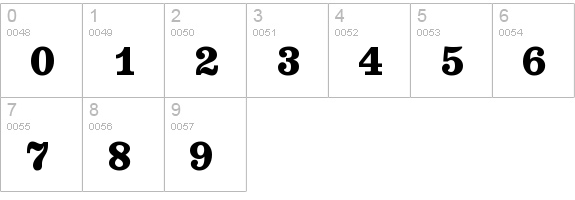
E710-Roman-Bold is a strong, high-contrast variant in the E710 typeface family \xE2\x80\x94 well suited to headlines, attention-grabbing titles, and strong calls-to-action.
E710-Roman-Bold font is a stylish and versatile typeface that exudes a classic Roman aesthetic with a modern twist. Its bold weight adds a strong and impactful presence to any design project, making it perfect for headlines, titles, and other display purposes. The clean lines and sharp edges of this font give it a professional and polished look that commands attention. What makes E710-Roman-Bold font even more appealing is that it is available for free download at FontsMarket.com. This means you can easily access and use this high-quality font in your projects without any cost. Whether you're designing posters, logos, or any other graphic materials, E710-Roman-Bold font is a fantastic choice that will elevate your work to the next level. Download it today and add a touch of sophistication to your designs!